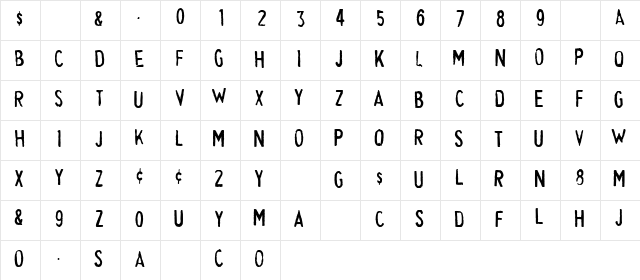
Cheapskate Fill
Style: Fill
Cheapskate Family
Design Context for Cheapskate
Cheapskate is a composed and adaptable typeface that performs quietly and consistently across a wide range of design contexts.